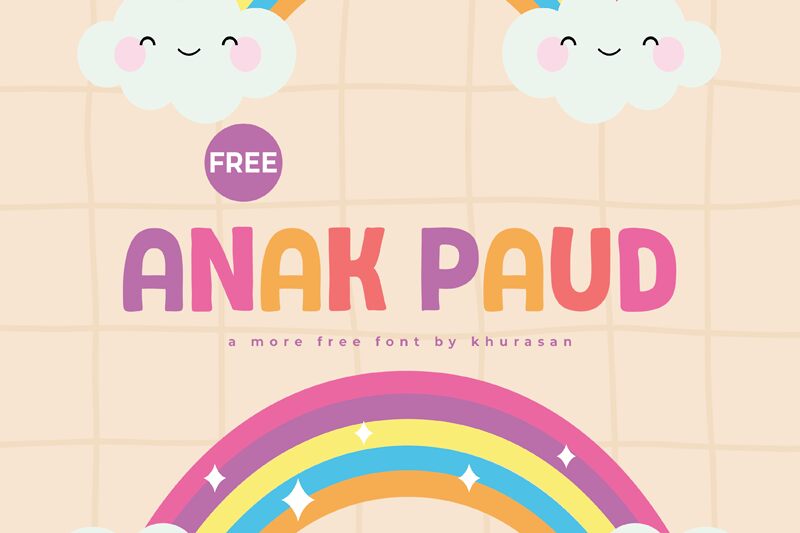
Anak Paud font family merges cartoonish charm with modern execution in a delightful execution for many digital and printed design projects. Developed by Khurasan, these light-hearted font styles take on a casual and youthful look suitable for all types of fun creations. The free font at hand is a fun typographic solution worth trying for projects where a dynamic and semi-monospaced design can fit.
Use the typeface for baby product packaging, cartoon titles, posters, fabric design, greeting cards, banners, web fonts, games, e-books, video titles, or product catalogs. Several letters and words combined can deliver an all-around fun look and aura.